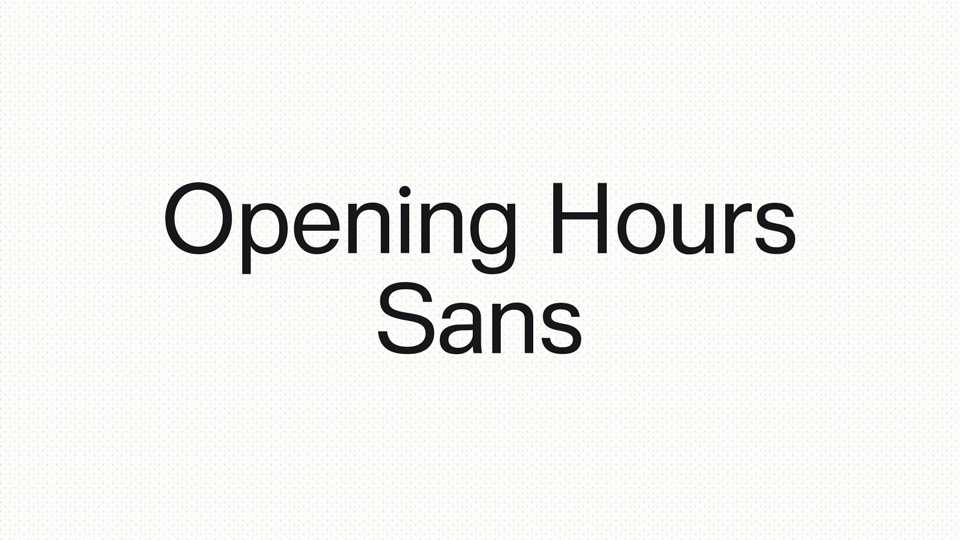
Download Opening Hours Sans font, a custom sans serif typeface designed for Opening Hours Studio. The font captures the essence of modern design with its clean lines, balanced proportions, and effortless legibility.